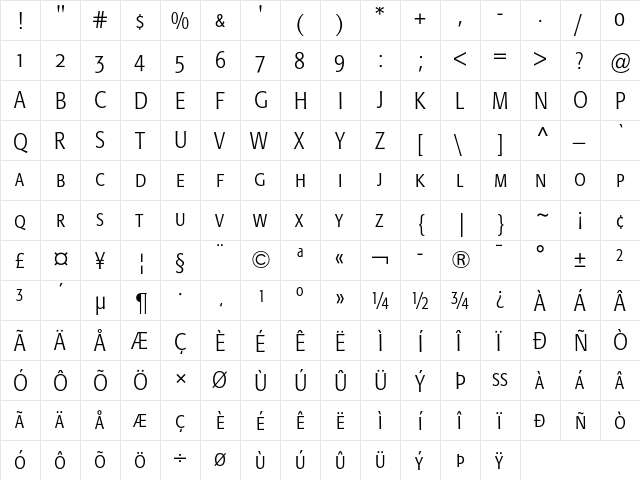
Formata Light Condensed SC
Design Context for Formata Typeface
Formata is a composed and adaptable typeface that performs quietly and consistently across a wide range of design contexts. Its slender proportions lend an understated elegance to any composition. The condensed width makes it efficient for tight spaces without sacrificing legibility.